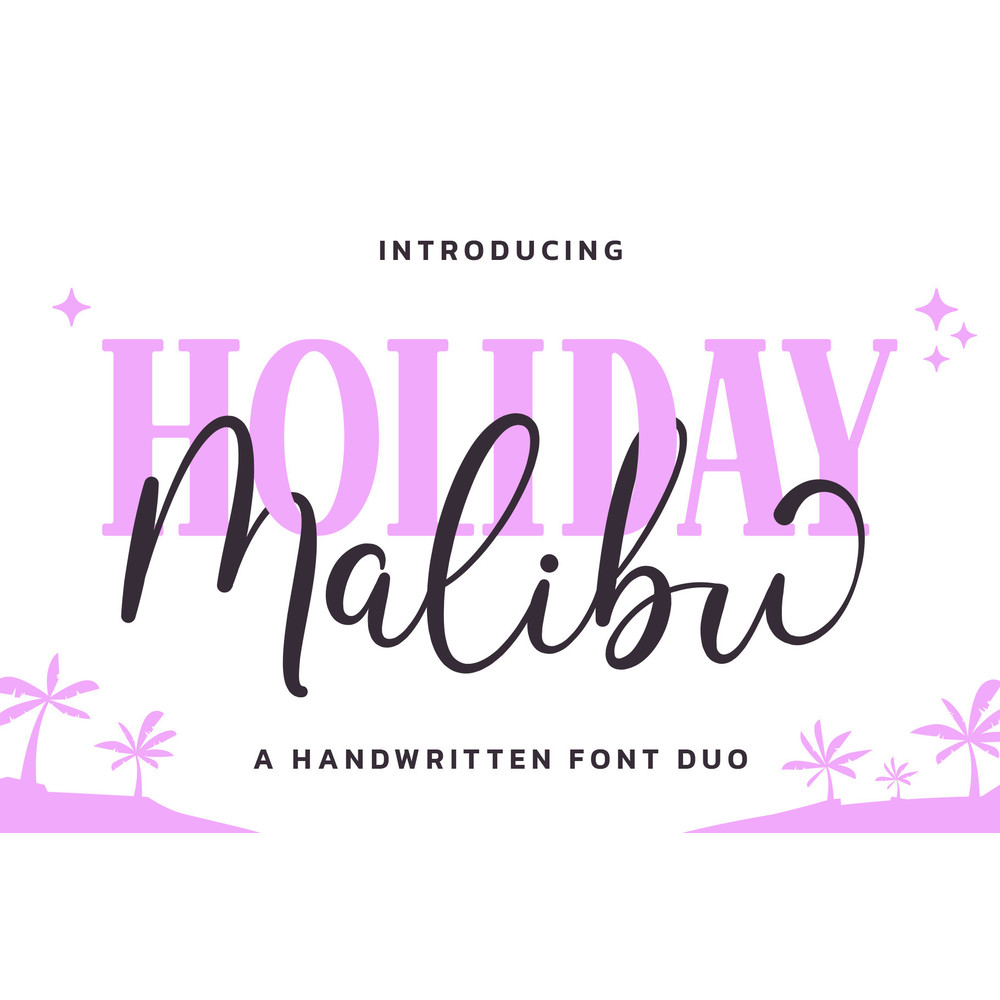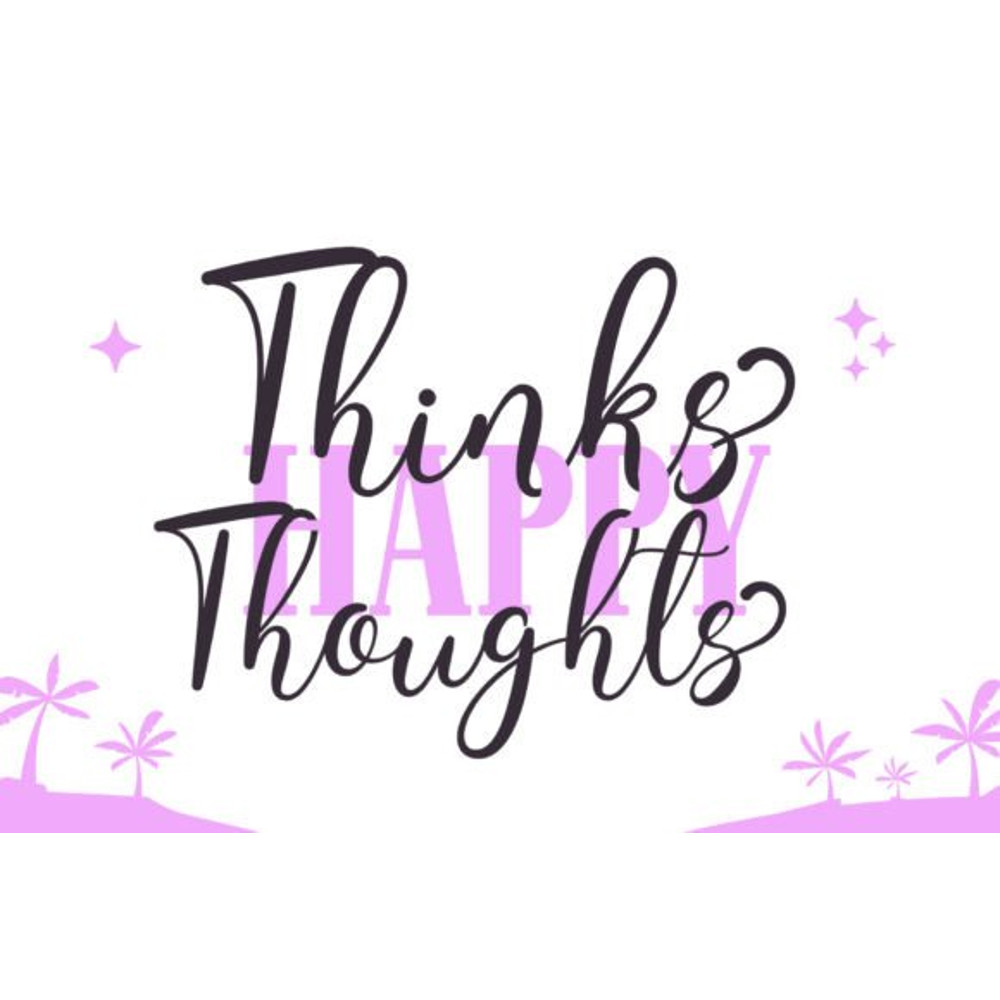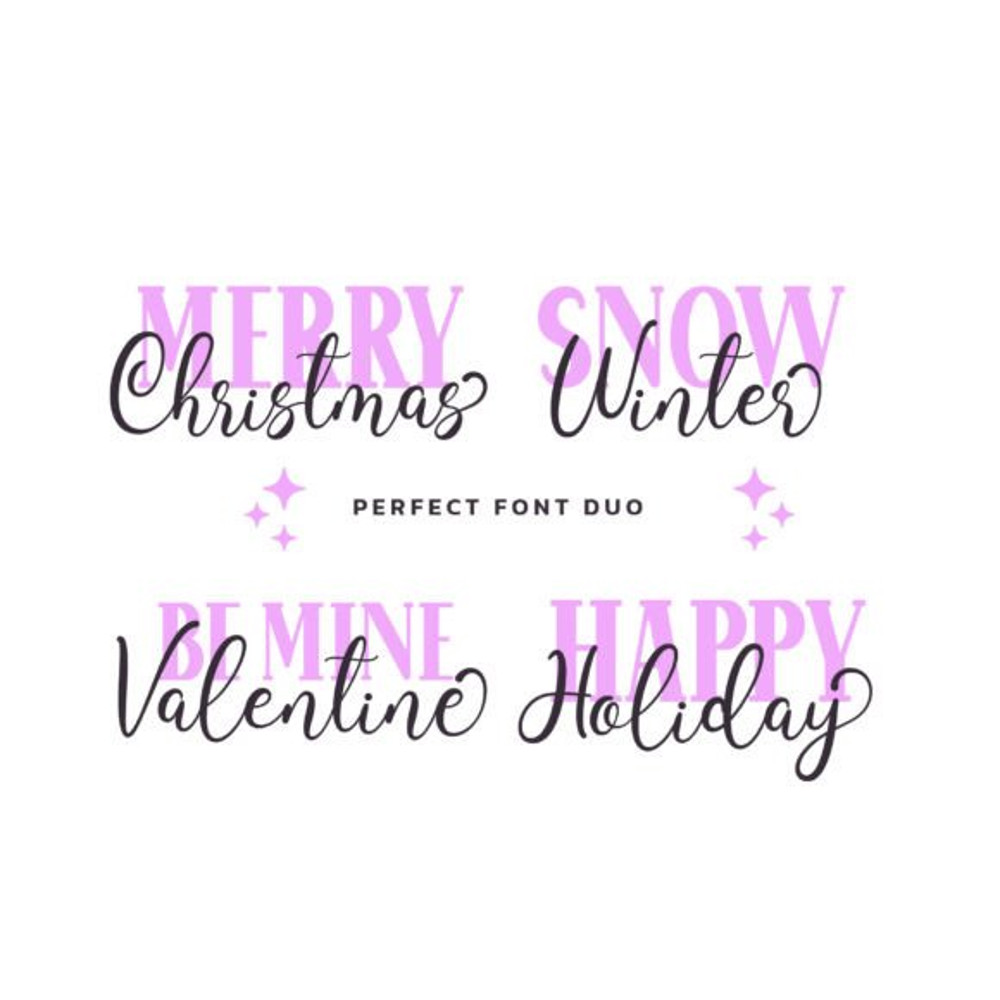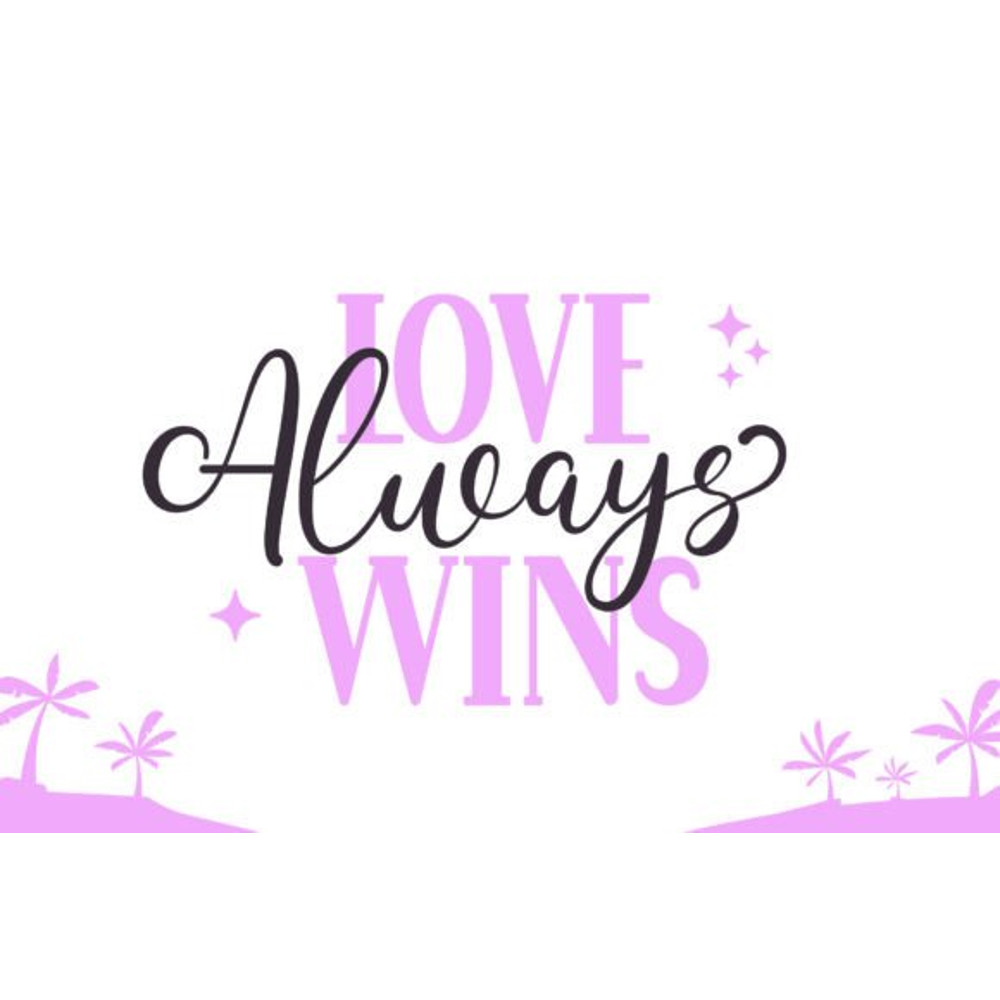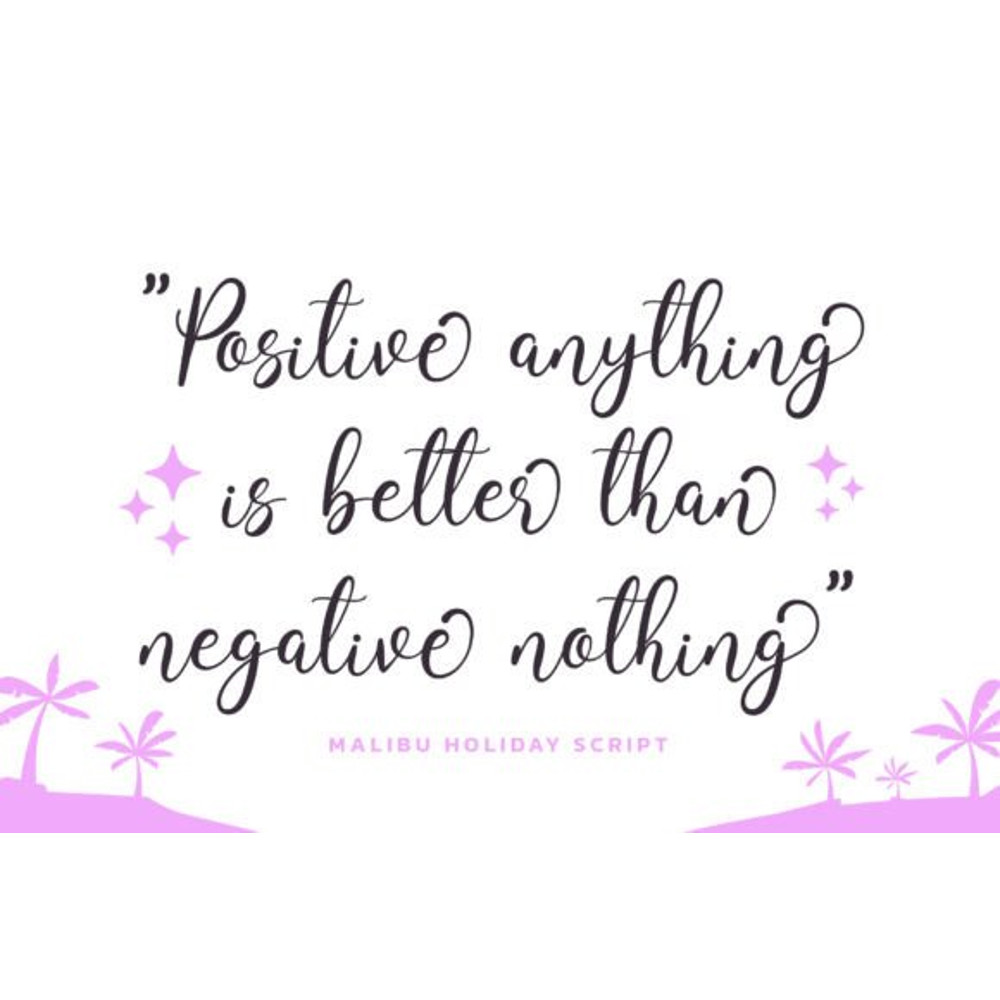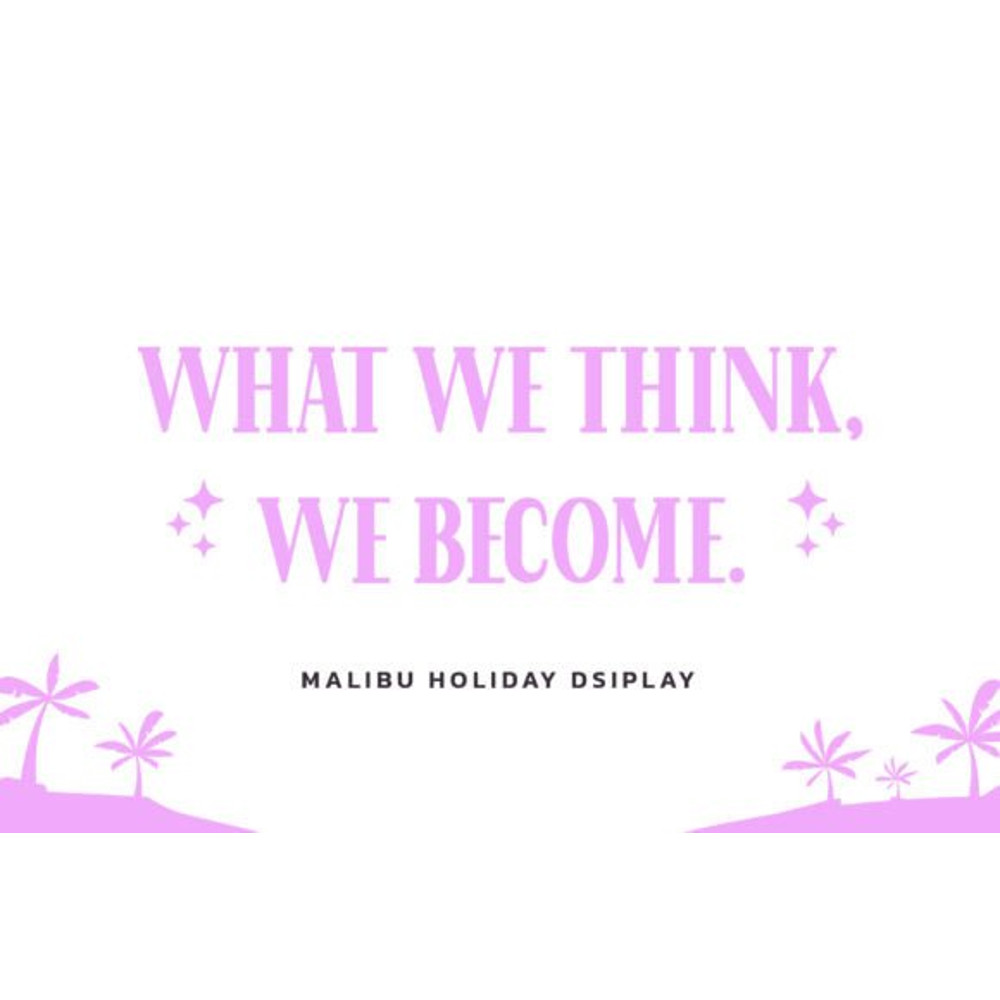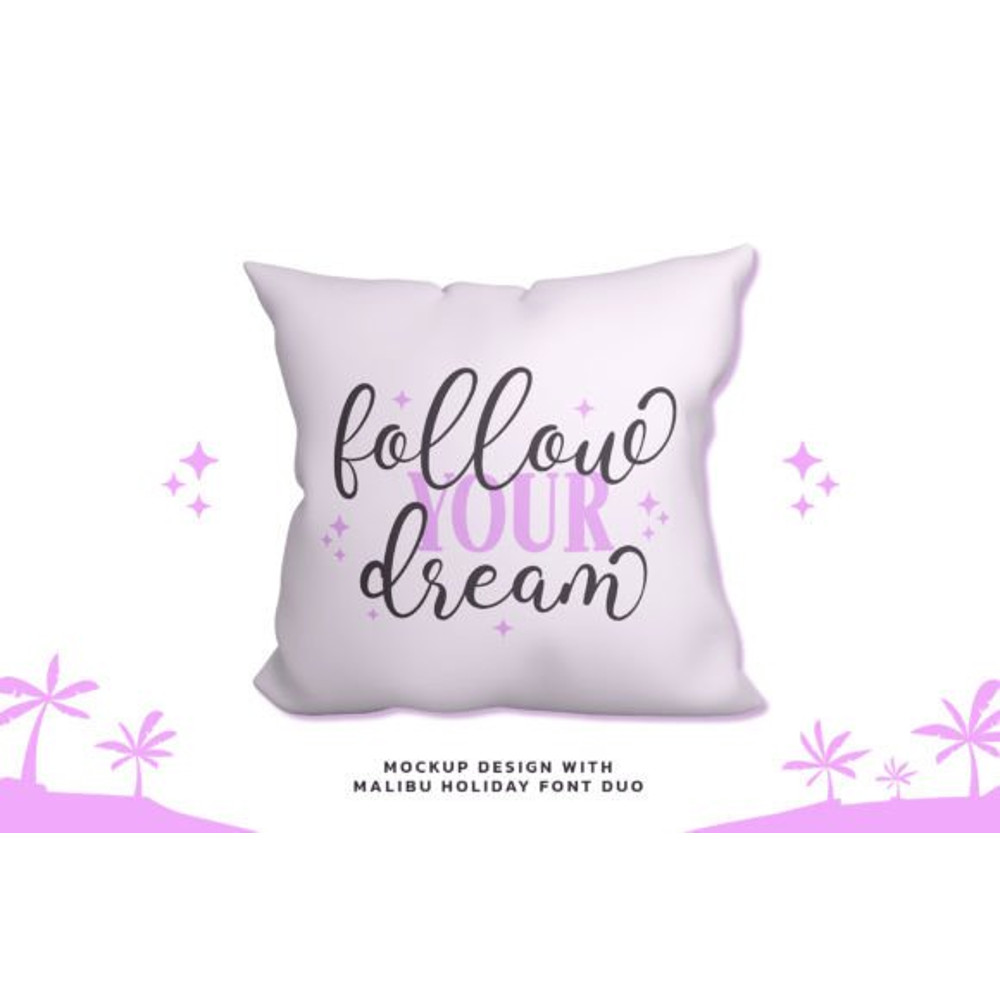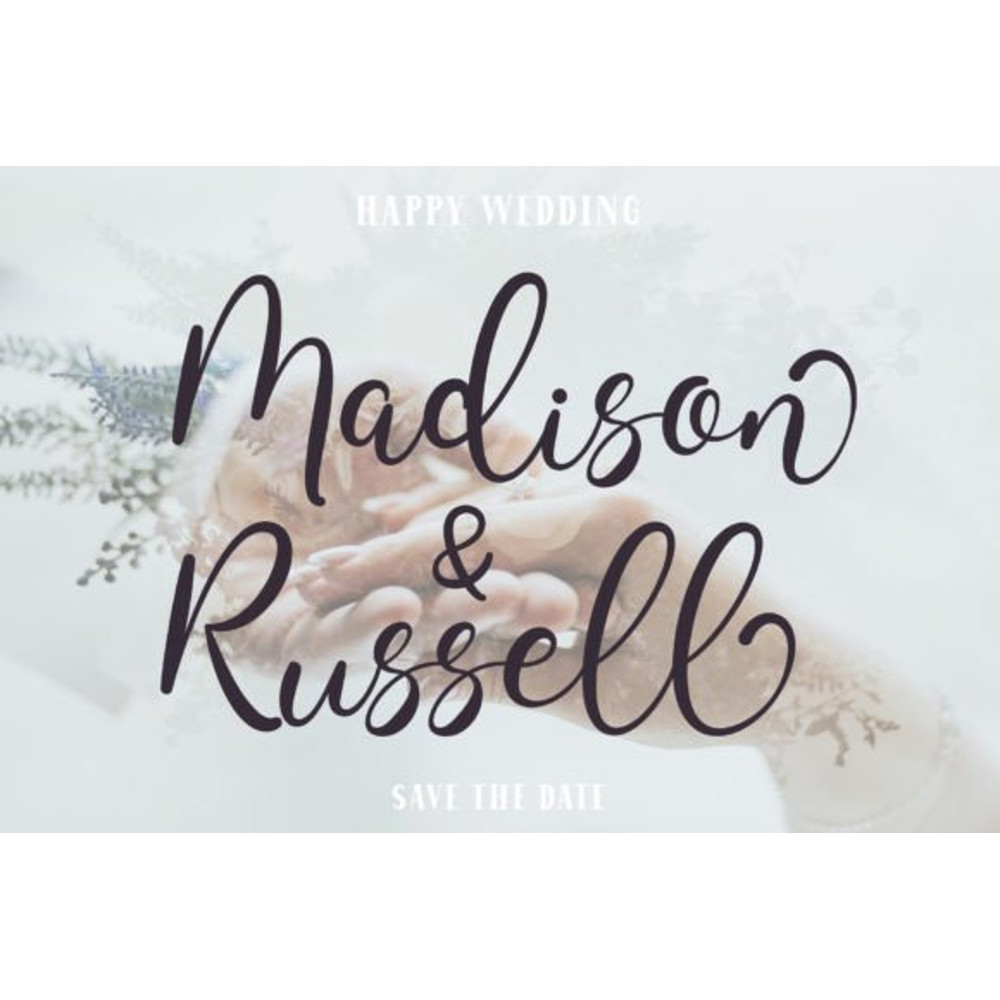
Malibu Holiday Duo Font
Malibu Holiday is a lovely and cute font duo with two styles – script monoline and serif display. This font is inspired by the beauty of Malibu, which makes it suitable for summery, or kids’-related products. This font will brighten up each of your designs. Malibu Holiday is PUA encoded which means you can access all of the glyphs and swashes with ease!